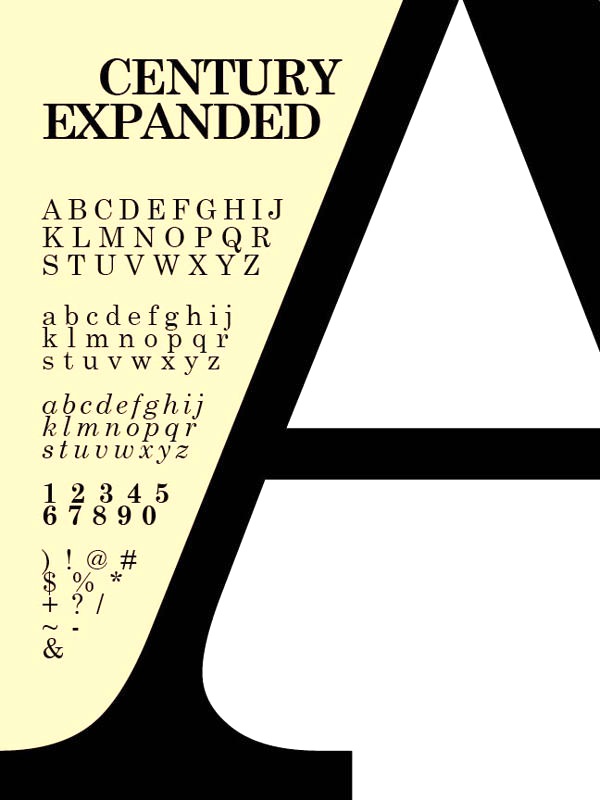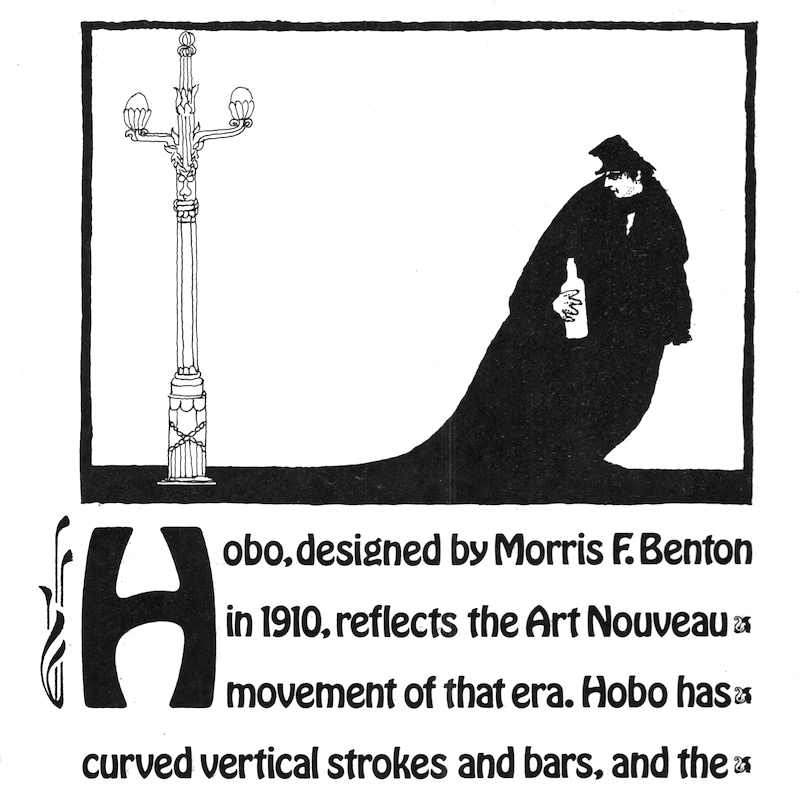
Morris Fuller Benton
Prolific American type designer (b. 1872, Milwaukee, d. 1948, Morristown, NJ), who published over 200 alphabets at ATF. He managed the ATF type design program from 1892 until 1937. Son of Linn Boyd Benton. MyFonts page on him. Nicholas Fabian's page. Linotype's page. Klingspor page. Unos tipos duros page. His fonts include:
• 1897: Cloister Old Style (ATF). [Stephenson Blake purchased this from ATF and called it Kensington Old Style, 1919] [Cloister (2005, P22/Lanston) is based on Jim Rimmer's digitization of Benton's Cloister.]
• 1898: Roycroft. Mac McGrew on Roycroft: Roycroft was one of the most popular of a number of rugged typefaces used around the turn of the century, when printing with an antique appearance was in vogue. It was inspired by lettering used by the Saturday Evening Post. then a popular weekly magazine, and has been credited to Lewis Buddy, a former Post artist and letterer, but ATF says it was designed "partly" by Morris Benton, about 1898. Gerry Powell, director of typographic design for ATF in the 1940s, says, "Roycroft was first known as Buddy, changed when it was adopted by Elbert Hubbard for the Roycroft Press." Henry L. Bullen, ATF librarian and historian, says, "The first font of type to be made from matrices directly engraved on the Benton machine was 24-point Roycroft. October 4, 1900." While the machine was originally designed in 1884 to cut punches rather than matrices, it is doubtful that no fonts of mats were cut before 1900. Roycroft is also said to be the first typeface for which the large size of 120-point was engraved in type metal, with matrices made by electrotyping. Many typefaces of the day had a number of alternate characters. For this face. ATF gave specific instructions for their intended use: "M with the short vertex, in words the letters of which are open; R with the long tail, as a final letter in all-cap words; the wide h, m, and n, as a final letter only; t with the swash tail, as a final letter but not too frequently; u with the descending stroke, in words having no descending letters; ct ligature, wherever possible; the long s and its combinations, in antique work." Roycroft Open was cut in 1902, probably from the same patterns as the parent face. Roycroft Tinted is a very unusual face, in which the typeface is engraved with the equivalent of a halftone screen of about 25 percent tone value, with a black shadow on the right side; this typeface was cut by the Dickinson Type Foundry branch of ATF in Boston, and includes the same special characters as Roycroft. Compare Post Oldstyle.
• 1900: Century Expanded (1900: poster by Heather Leonhardt). This was a complete redraw of Century Roman which was designed in 1894 by his father, Linn Boyd Benton, for Theodore Low DeVinne, the publisher of Century Magazine. Digitizations by Elsner&Flake, Bitstream and URW.
• 1901: Linotext (aka WedddingText).
• 1901-1910: Engravers.
• 1901: Wedding Text (some put this in 1907), Old English Text, Engravers' Old English (a blackletter font remade by Bitstream). Wedding Text has been copied so often it is sickening: Wedding Regular and Headline (HiH, 2007), Dan X. Solo's version, Comtesse, Elite Kanzlei (1905, Stempel), Meta, Lipsia, QHS Nadejda (QHS Soft), Blackletter 681, Marriage (Softmaker), Wedding Text TL (by Tomas Liubinas).
• 1902: Typoscript.
• 1902-1912: Franklin Gothic. Digital versions exist by Bitstream, Elsner&Flake (in a version called ATF Franklin Gothic), Red Rooster (called Franklin Gothic Pro, 2011), Linotype, and ITC (ITC Franklin Gothic). Discussion by Harvey Spears. Mac McGrew: Franklin Gothic might well be called the patriarch of modern American gothics. Designed in 1902 by Morris Fuller Benton, it was one of the first important modernizations of traditional nineteenth-century typefaces by that designer, after he was assigned the task of unifying and improving the varied assortment of designs inherited by ATF from its twenty-three predecessor companies. Franklin Gothic (named for Benjamin Franklin) not only became a family in its own right, but also lent its characteristics to Lightline Gothic. Monotone Gothic, and News Gothic (q.v.). All of these typefaces bear more resem- blance to each other than do the typefaces within some other single families. Franklin Gothic is characterized by a slight degree of thick-and-thin contrast; by the double-loop g which has become a typically American design in gothic typefaces; by the diagonal ends of curved strokes (except in Extra Condensed); and by the oddity of the upper end of C and c being heavier than the lower end. The principal specimen here is Monotype, but the basic font is virtually an exact copy of the ATF typeface in display sizes, except that Monotype has added f- ligatures and diphthongs. Franklin Gothic Condensed and Extra Condensed were also designed by Benton, in 1906; Italic by the same designer in 1910; and Condensed Shaded in 1912 as part of the "gray typography" series. Although Benton started a wide version along with the others, it was abandoned; the present Franklin Gothic Wide was drawn by Bud (John L.) Renshaw about 1952. Franklin Gothic Condensed Italic was added by Whedon Davis in 1967. Monotype composition sizes of Franklin Gothic have been greatly modi- fied to fit a standard arrangement; 12-point is shown in the specimen-notice the narrow figures and certain other poorly reproportioned characters. The 4- and 5-point sizes have a single-loop g. Gothic No. 16 on Linotype and Inter- type is essentially the same as Franklin Gothic up to 14-point; in larger sizes it is modified and more nearly like Franklin Gothic Condensed. However. some fonts of this typeface on Lino have Gagtu redrawn similar to Spartan Black. with the usual characters available as alternates; 14-point is shown. Western Type Foundry and later BB&S used the name Gothic No.1 for their copy of Franklin Gothic, while Laclede had another similar Gothic No. 1 (q.v.). On Ludlow, this design was originally known as Square Gothic Heavy with a distinctive R and t as shown separately after the Monotype diphthongs; when the name was changed to Franklin Gothic in 1928, it was redrawn, closer to Franklin Gothic but still a bit top-heavy; the unique R was retained in standard fonts but an alternate version like that of ATF was made available separately; also a U with equal arms, a single-loop g, and a figure 1 without foot serifs. Ludlow Franklin Gothic Italic, partially shown on the third line of the specimen, is slanted much more than other versions, to fit the standard 17 -degree italic matrices of that machine. Modern Gothic Condensed and Italic (q.v.) are often though not properly called Franklin Gothic Condensed and Italic, especially by Monotype users. Also see Streamline Block.
• 1903: Alternate Gothic (ATF). See Alternate Gothic Pro Antique (Elsner&Flake), Alternate Gothic No2 (Bitstream), Alpin Gothic (by Team77), League Gothic (2009-2011, The League of Movable Type), and Alternate Gothic No1, No2 and No3 (see the URW version). Mac McGrew: Alternate Gothic was designed in 1903 by Morris F. Benton for ATF with the thought of providing several alternate widths of one design to fit various layout problems. Otherwise it is a plain, basic American gothic with no unusual features, but represents a more careful drawing of its nineteenth-century predecessors. The Monotype copies in display sizes are essentially the same as the foundry originals, with the addition of f-ligatures. The thirteen alternate round capitals shown in the first line of Alternate Gothic No.1 were designed by Sol Hess in 1927 for Monotype, hence the "Modernized" name; with these letters the design is sometimes referred to as Excelsior Gothic. Monotype keyboard sizes, as adapted by Hess about 1911, are considera- bly modified to fit a standard arrangement; caps are not as condensed as in the original foundry design. In 6-point, series 51 and 77 are both the same width, character for character, but some letters differ a bit in design. Note that these two narrower widths are simply called Alternate Gothic on Monotype, while the wider version is Alternate Gothic Condensed! Alternate Gothic Italic, drawn about 1946 by Sol Hess for Monotype matches No.2, but may be used with other widths as well. Condensed Gothic on Ludlow, is essentially a match for Alternate Gothic No.1, but has a somewhat different set of variant characters, as shown in the third line. There is also Condensed Gothic Outline on Ludlow, introduced about 1953, essentially an outline version of Alternate Gothic No.2. On Linotype and Intertype there is Gothic Condensed No.2 which is very similar to Alternate Gothic No. 1 in the largest sizes only, but with even narrower lowercase and figures. Also compare Trade Gothic Bold and Trade Gothic Bold Condensed. For a free version of Alternate Gothic No. 1, see League Gothic (2009-2011, The League of Movable Type).
• 1904: Bold Antique, Whitin Black [see OPTI Bold Antique for a modern digitization], Cheltenham (digitizations by Bitstream and Font Bureau, 1992), Cloister Black (blackletter font, see the Bitstream version: it is possible that the typeface as designed by Joseph W. Phinney).
• 1905: Linoscript (1905). Originally at ATF it was named "Typo Upright". Clearface, about which McGrew writes: Clearface was designed by Morris Benton with his father, Linn Boyd Benton, as advisor. The bold was designed first, in 1905, and cut the following year. The other weights and italics were produced through 1911. As the name implies, the series was intended to show unusual legibility, which it certainly achieved. The precision of cutting and casting for which ATF is noted produced a very neat and handsome series, which had considerable popularity. Clearface Heavy Italic has less inclination than the lighter weights, and is non-kerning, a detail which helped make it popular for newspaper use; the specimen shown here is from a very worn font. Some of the typefaces have been copied by the matrix makers. But the typeface Monotype calls Clearface and Italic is the weight called Bold by other sources. Monotype also includes Clearface Italic No. 289, a copy of the lighter weight. Revival and expansion by Victor Caruso for ITC called ITC Clearface, 1978. Also, American Extra Condensed, an octagonal mechanical typeface revived in 2011 by Nick Curtis as Uncle Sam Slim NF.
• 1906: Commercial Script (versions exist at Linotype, URW, Bitstream (called English 144), SoftMaker (2012), and Elsner&Flake), Miele Gothic, Norwood Roman.
• 1907: Lincoln Gotisch, named after Abraham Lincoln. This found found its way from ATF to Schriftguss, Trennert und Sohn, and Ludwig Wagner. Digital revivals include Delbanco's DS Lincoln-Gotisch. Compare with Comtesses, Lipsia, Elite Kanzlei, Lithographia and Wedding Text.
• 1908: News Gothic, Century Oldstyle (digital versions by Bitstream, Elsner&Flake, and URW), Clearface Gothic (1907-1910: digital revivals include Clear Gothic Serial (ca. 1994, SoftMaker) and Cleargothic Pro (2012, SoftMaker). McGrew: Clearface Gothic was designed by Morris Benton for ATF in 1908, and cut in 1910. It is a neat, clean gothic, somewhat thick and thin, which incorporates some of the mannerisms of the Clearface (roman) series. However, it can hardly be considered a part of that family. There is only one weight, and fonts contain only the minimum number of characters.
• 1909-1911: Rugged Roman. McGrew: Rugged Roman was designed for ATF by Morris F. Benton in 1909-11. It was patented in 1915, but the earliest showing seems to have appeared in 1917. It is a rugged face, as the name says, of the sort that was popular early in the century, but appears to have no relation to other typefaces having the name "Rugged." It somewhat resembles Roycroft, but is lighter. But to add to the uncertainty, fonts contained a number of ligatures of the kind which were more common in the early 1900s, in addition to the usual f-ligatures.